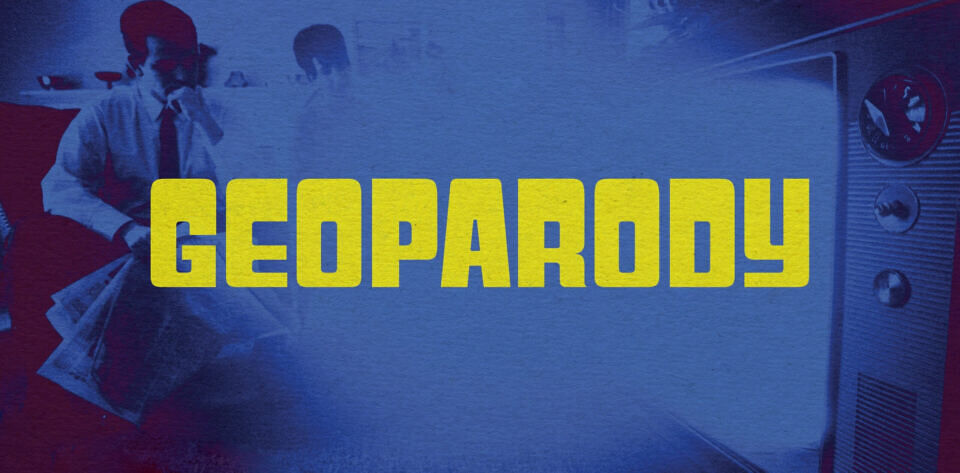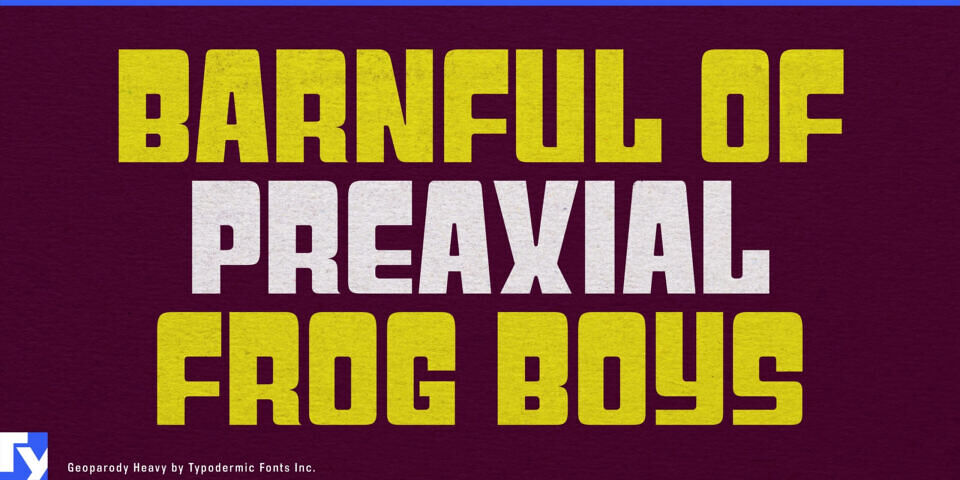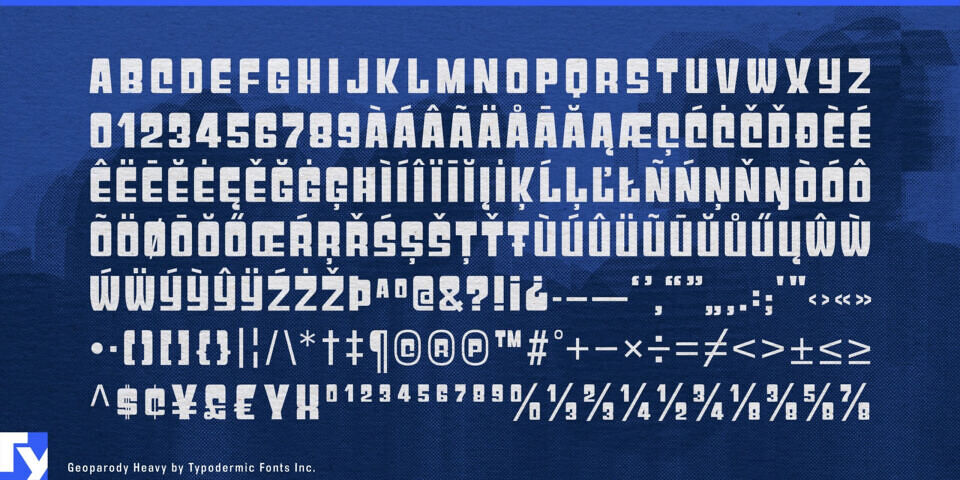
Geoparody Font
Groove into the typographic time warp with Geoparody, a font that doesn’t just nod to the 1960s—it throws a full-blown psychedelic party on your page. This isn’t your grandmother’s vintage typeface; it’s a bold, funky reimagining of the iconic Anonymous font that once lit up television screens on “Jeopardy!”
Designed by: Typodermic Fonts